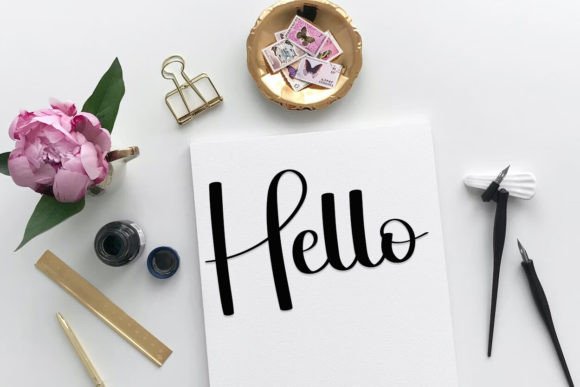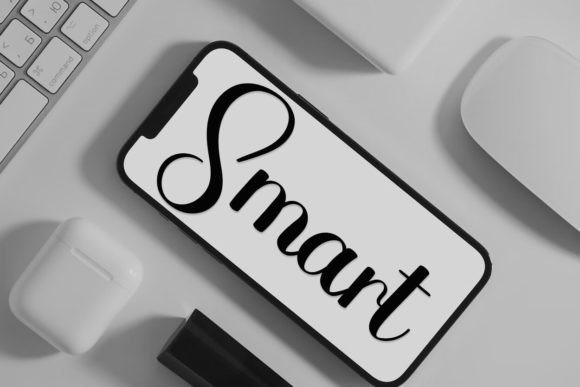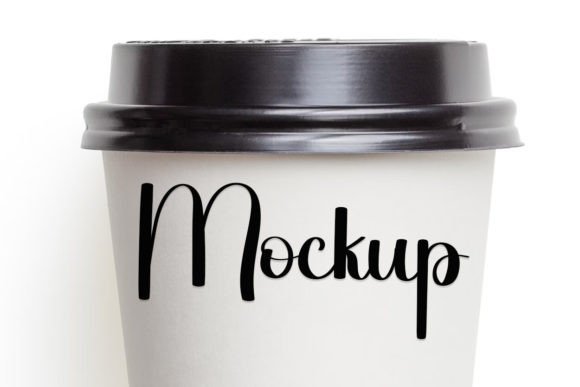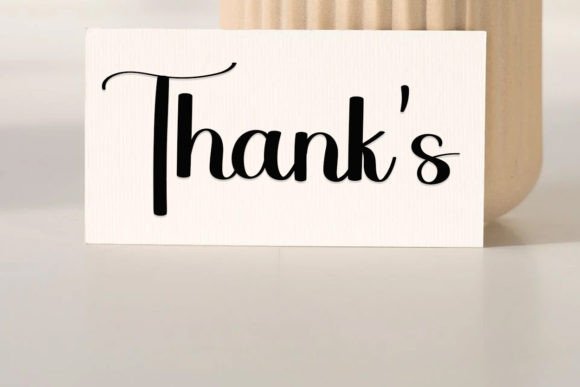
Airing Font: Elevate Your Designs with a Lovely and Timeless Handwritten Style
Are you on the hunt for a font that adds a touch of elegance and sophistication to your designs? Look no further than Airing Font, a beautiful and timeless handwritten font that’s perfect for creating eye-catching logos, branding, and quotes. With its unique and beautiful touch, Airing Font is sure to make your design come alive!
What Makes Airing Font So Special?
Airing Font is a stunning handwritten font that’s been carefully crafted to bring a touch of personality to your designs. Every letter has a unique and beautiful touch, making it perfect for designers and crafters who want to add a personal touch to their work. Whether you’re creating a logo, branding materials, or quotes, Airing Font is the perfect choice.
Key Features of Airing Font
- Handwritten Style: Airing Font has a beautiful handwritten style that’s perfect for creating personal and elegant designs.
- Unique Letters: Every letter in Airing Font has a unique and beautiful touch, making it perfect for adding a personal touch to your designs.
- Elegant and Sophisticated: Airing Font has an elegant and sophisticated feel that’s perfect for creating high-end designs.
- Versatile: Airing Font is perfect for a wide range of design projects, from logos and branding to quotes and more.
Why Choose Airing Font?
There are many fonts to choose from, but Airing Font stands out from the crowd. Here are just a few reasons why:
- Timeless Style: Airing Font has a timeless style that will never go out of fashion.
- Easy to Read: Airing Font is easy to read, making it perfect for body text and headlines.
- Highly Versatile: Airing Font can be used for a wide range of design projects, from digital to print.
- Unique and Beautiful: Airing Font has a unique and beautiful touch that will make your designs stand out.
How to Use Airing Font in Your Designs
Airing Font is easy to use and can be incorporated into your designs in a variety of ways. Here are a few ideas to get you started:
- Logos and Branding: Use Airing Font to create a unique and memorable logo or branding materials.
- Quotes and Posters: Airing Font is perfect for creating eye-catching quotes and posters.
- Digital and Print Materials: Use Airing Font in your digital and print materials, such as brochures, flyers, and more.
Tips and Tricks for Getting the Most Out of Airing Font
Here are a few tips and tricks for getting the most out of Airing Font:
- Experiment with Different Sizes: Airing Font looks great in a variety of sizes, so don’t be afraid to experiment.
- Pair with Other Fonts: Airing Font pairs well with other fonts, so try pairing it with a bold font for a striking contrast.
- Use in Combination with Images: Airing Font looks great in combination with images, so try using it to add text to your photos.
Airing Font is a beautiful and timeless handwritten font that’s perfect for designers and crafters who want to add a personal touch to their work. With its unique and beautiful touch, Airing Font is sure to make your design come alive! Whether you’re creating logos, branding materials, or quotes, Airing Font is the perfect choice.